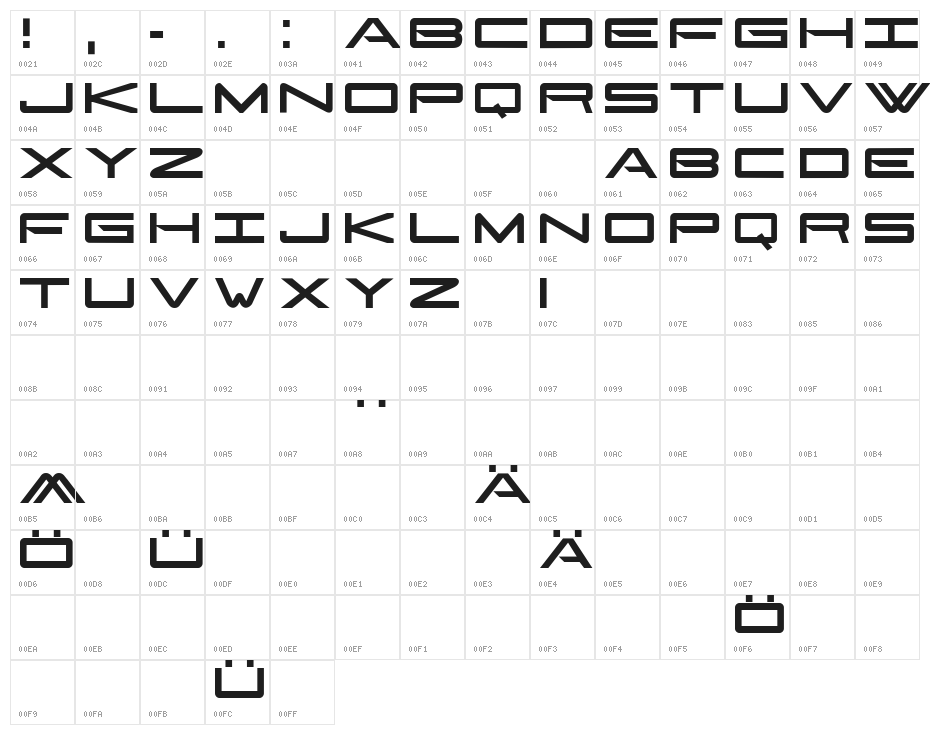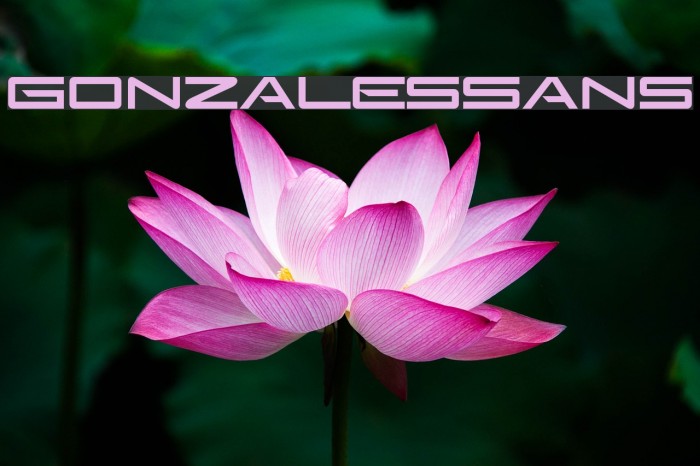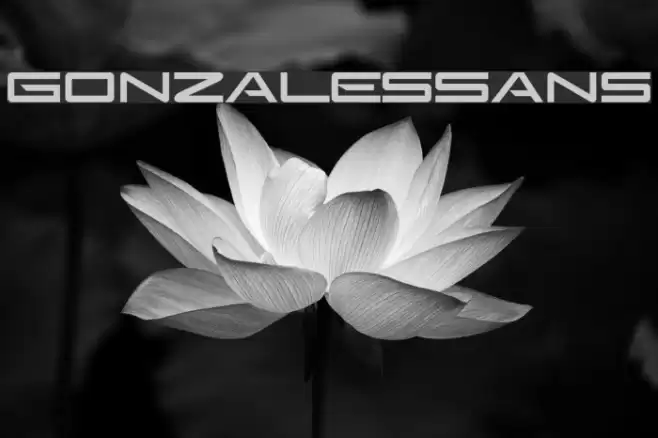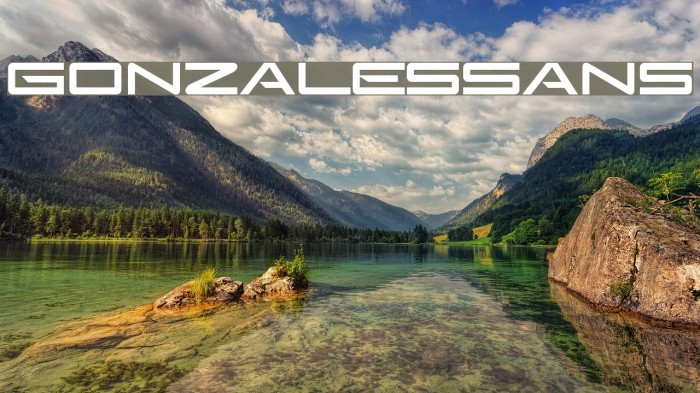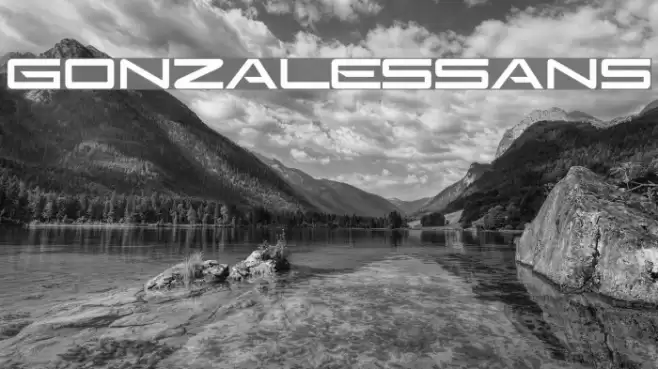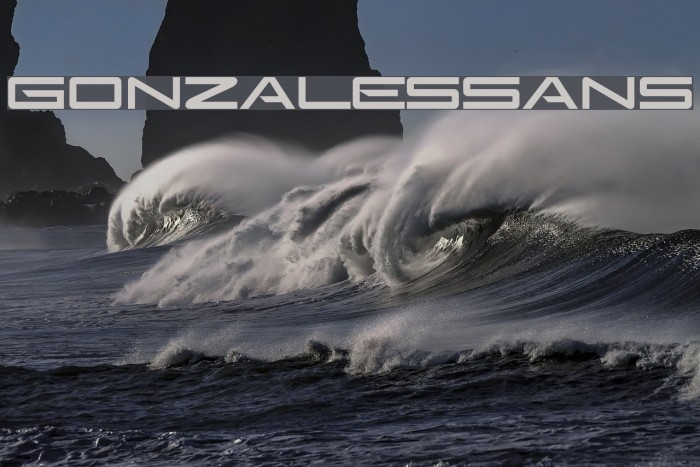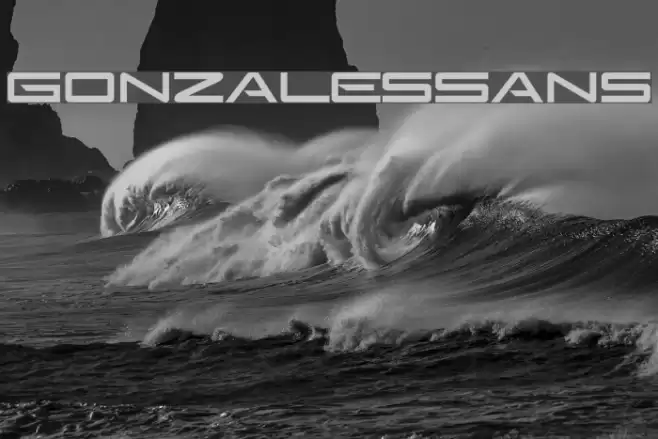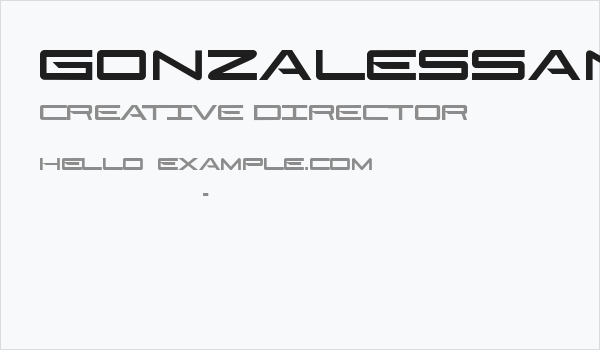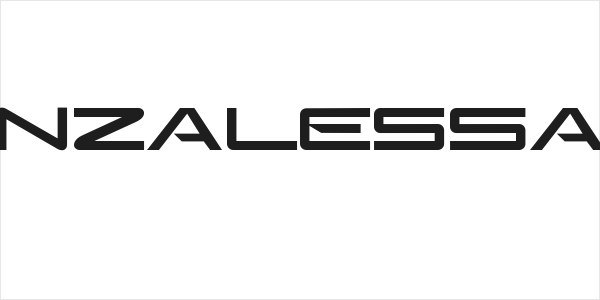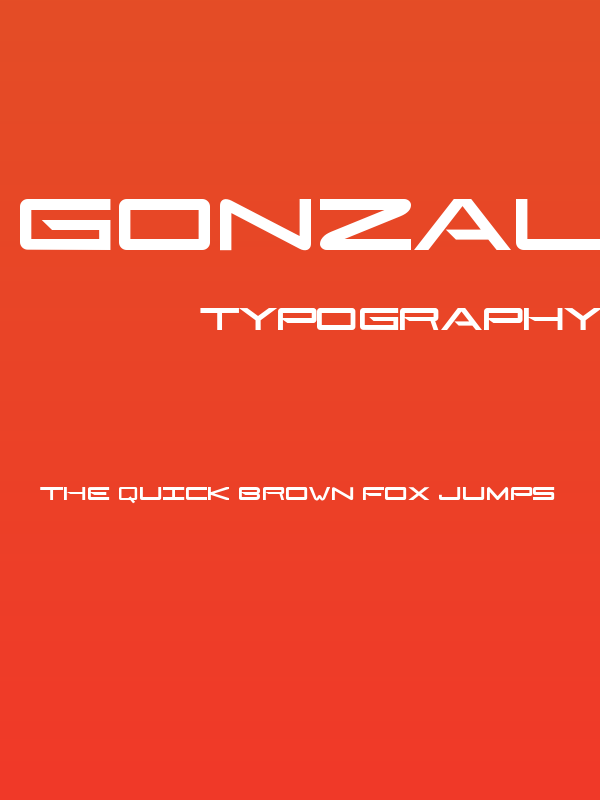
GonzalesSans Font
GonzalesSans Description
This font features a modern, geometric style with a futuristic touch. The characters are constructed with straight lines and sharp angles, giving it a sleek and technical appearance. The uppercase letters are uniform in height, with consistent stroke widths that create a balanced and cohesive look. The design is minimalistic, avoiding any unnecessary embellishments, which enhances its readability and versatility. The font's structure is ideal for conveying a sense of precision and innovation, making it suitable for technology-related projects. Its clean lines and contemporary aesthetic make it a great choice for modern branding and design.
| Use Case | Logos, Headlines |
| Proposed Projects | Ideal for technology branding, modern logos, and innovative product packaging. |